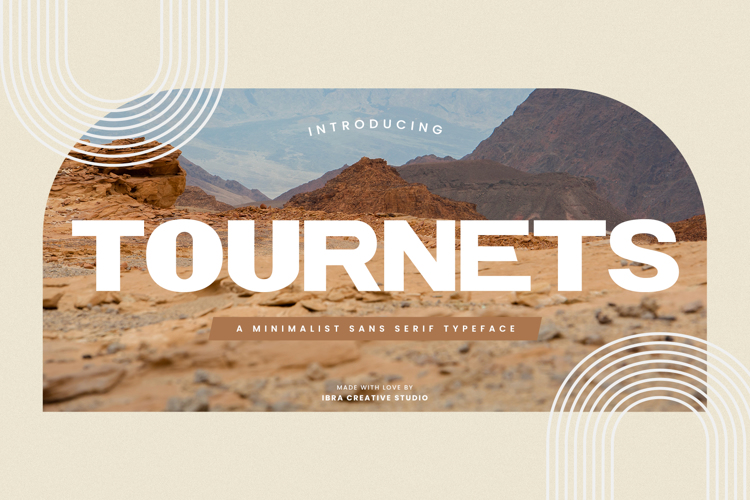
Tournets Font
Tournets, a minimalist sans-serif typeface, epitomizes simplicity and contemporary elegance. Its clean lines and unadorned characters exude a sense of modernity and sophistication, making it an ideal choice for those seeking a timeless and versatile typographic solution.